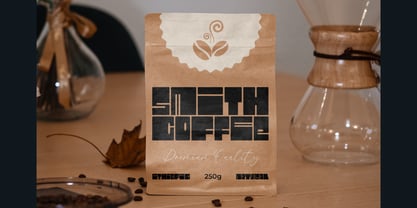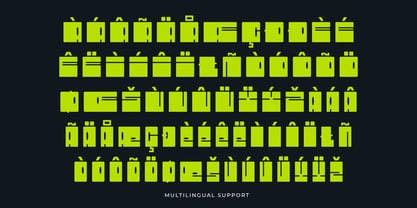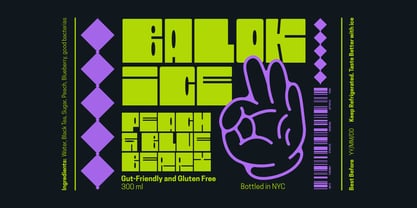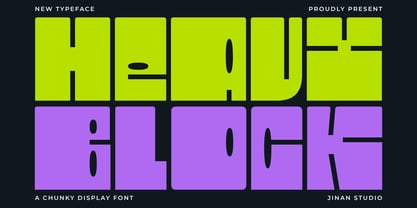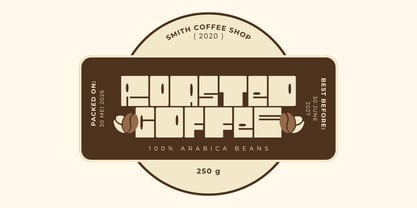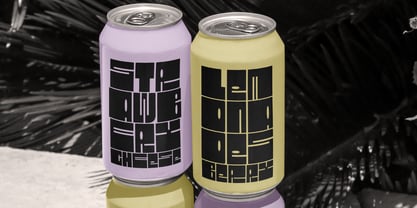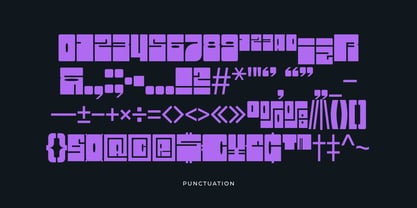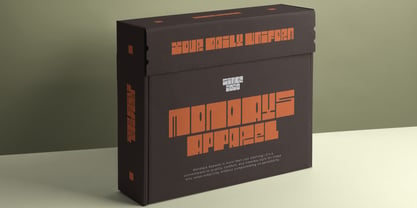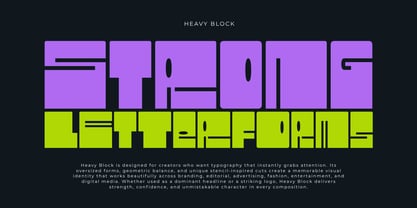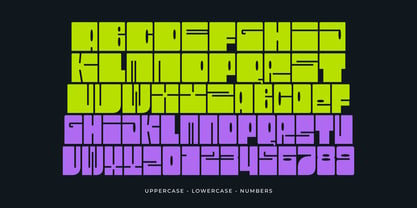
Heavy Block
The Heavy Block Font Family was designed by Andi Syahdang and published by Jinan Studio. Heavy Block contains 1 styles. More about this family
Heavy Block is a bold display font that combines a strong geometric structure with a modern brutalist aesthetic. Built with ultra-heavy letterforms, squared proportions, and distinctive stencil-inspired cutouts, this typeface creates an eye-catching visual impact that demands attention. Every character is designed to feel solid, confident, and contemporary, making it ideal for large-scale typography where readability and personality are equally important.
Its industrial-inspired design and futuristic details make Heavy Block perfect for projects that require a bold visual identity. Whether you're creating striking headlines or memorable logos, this font delivers a powerful presence that stands out across both digital and print media.
Features
• Uppercase & Lowercase
• Numbers & Punctuation
• Multilingual Support